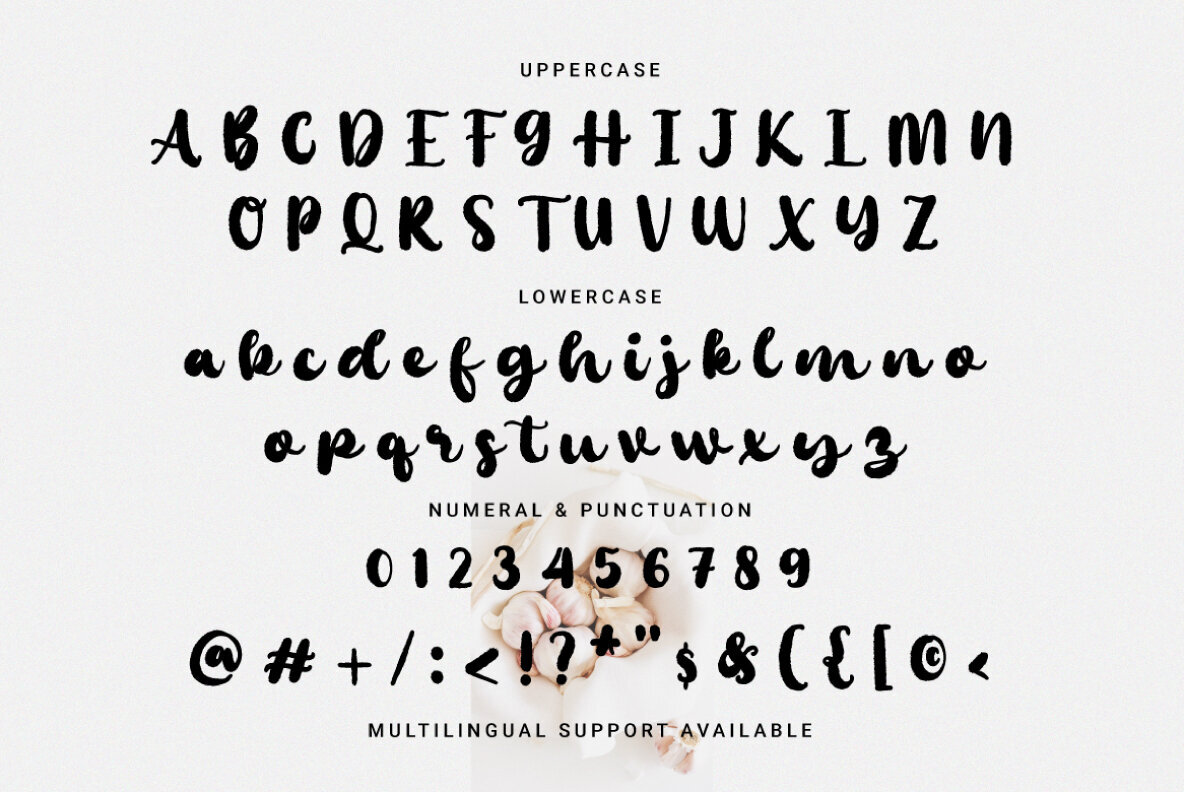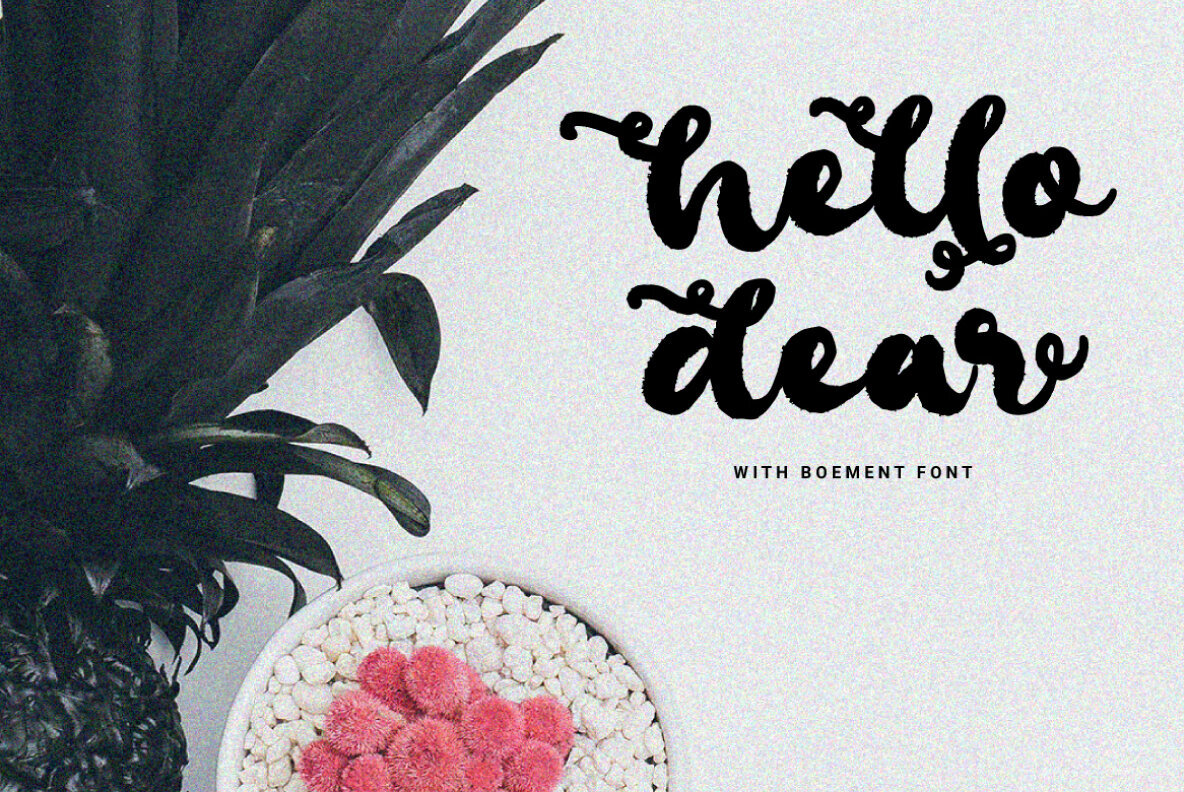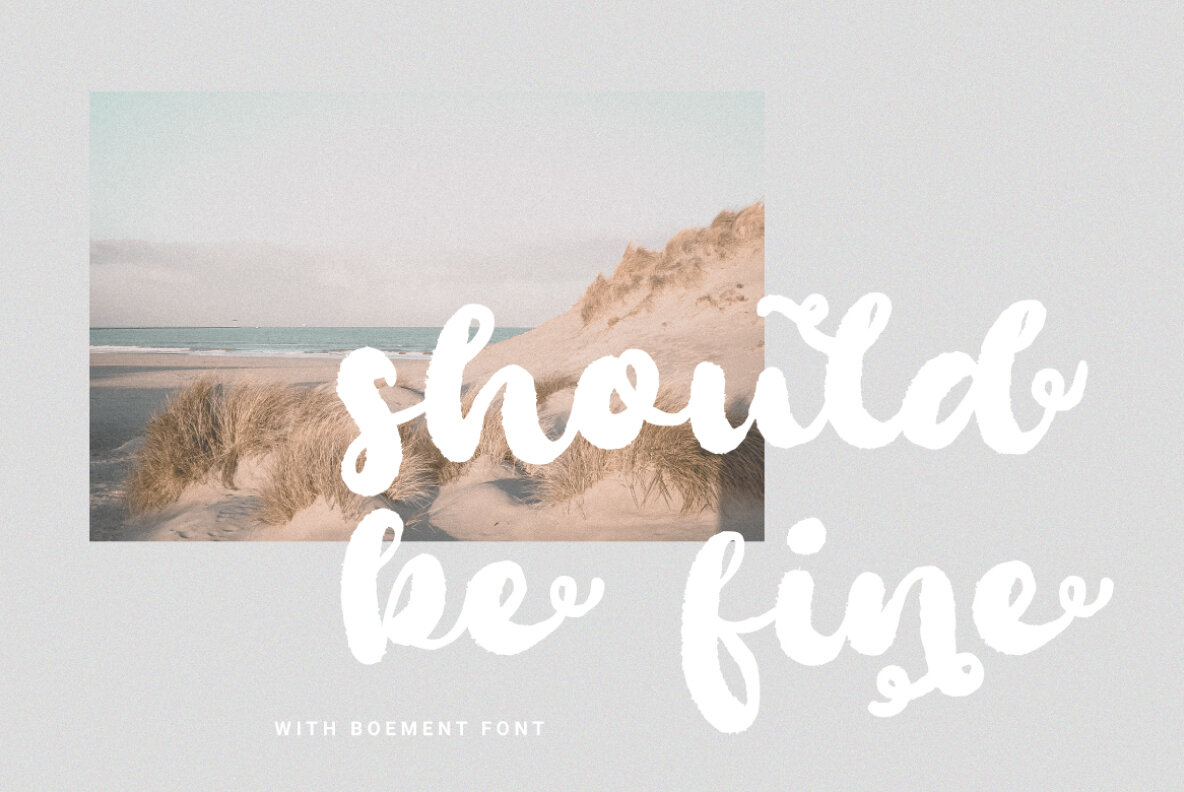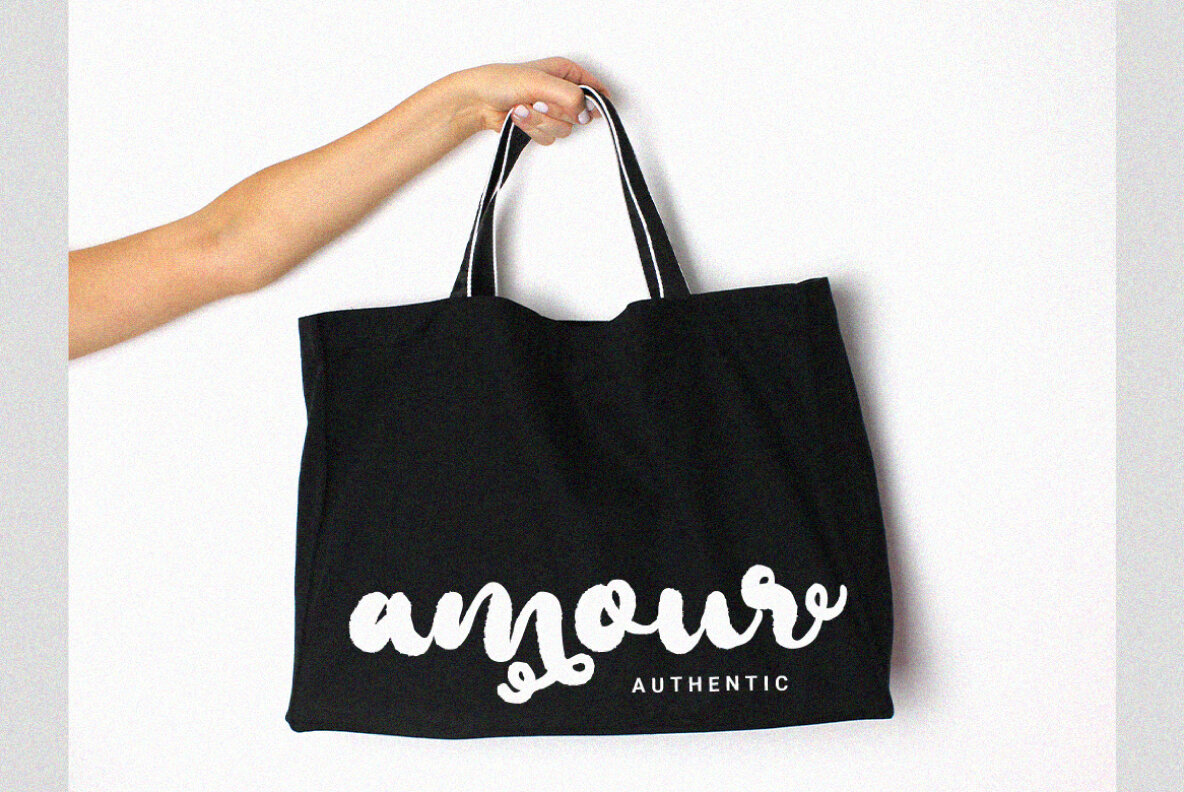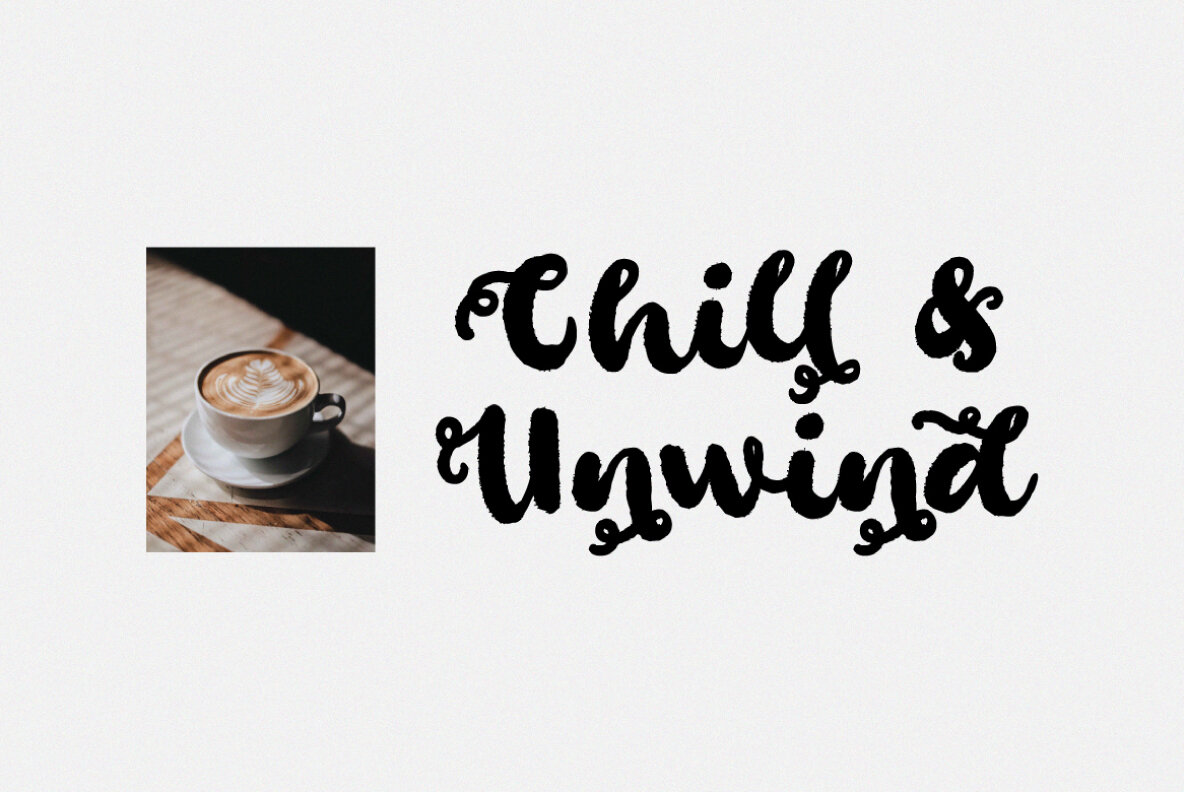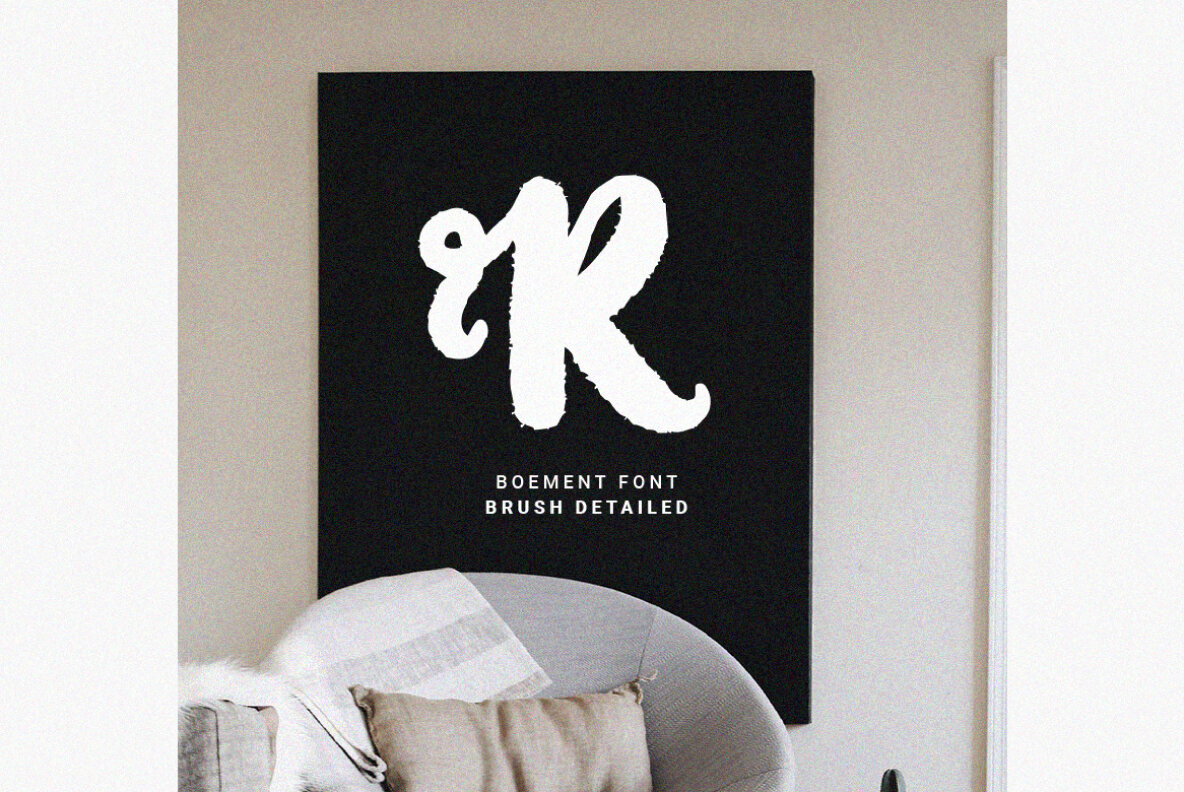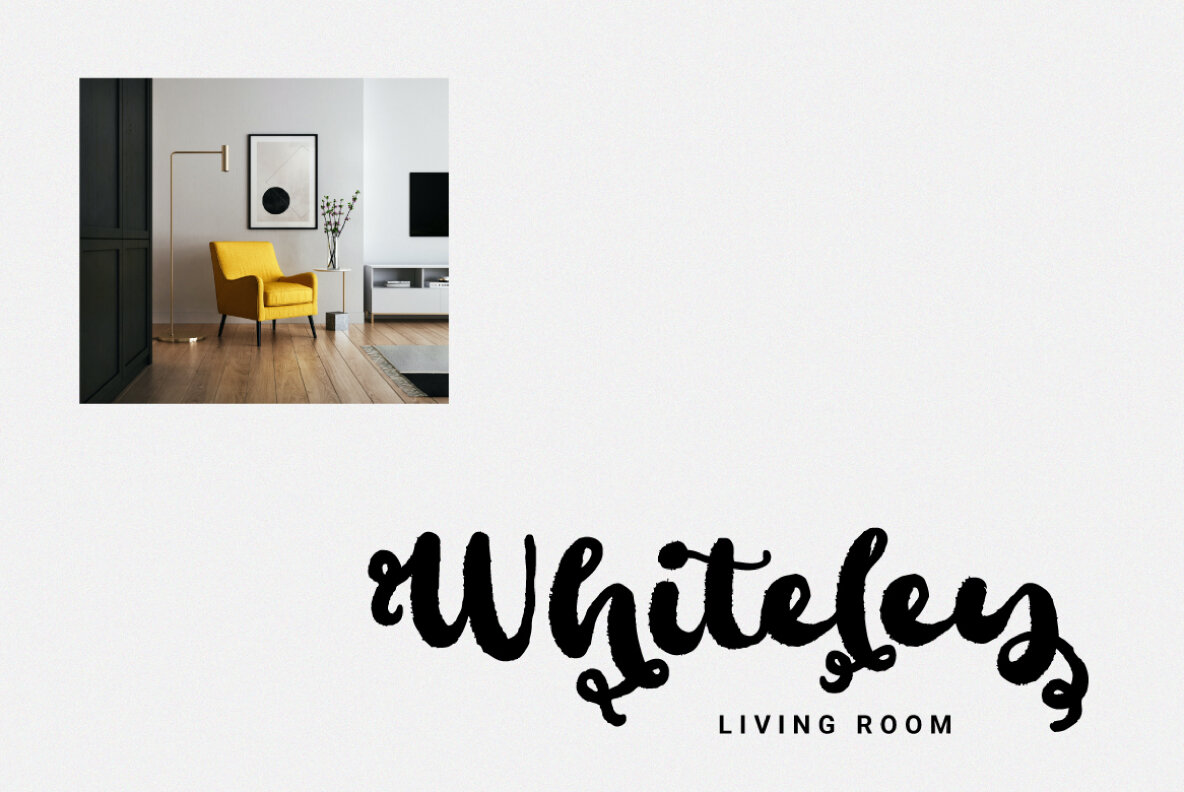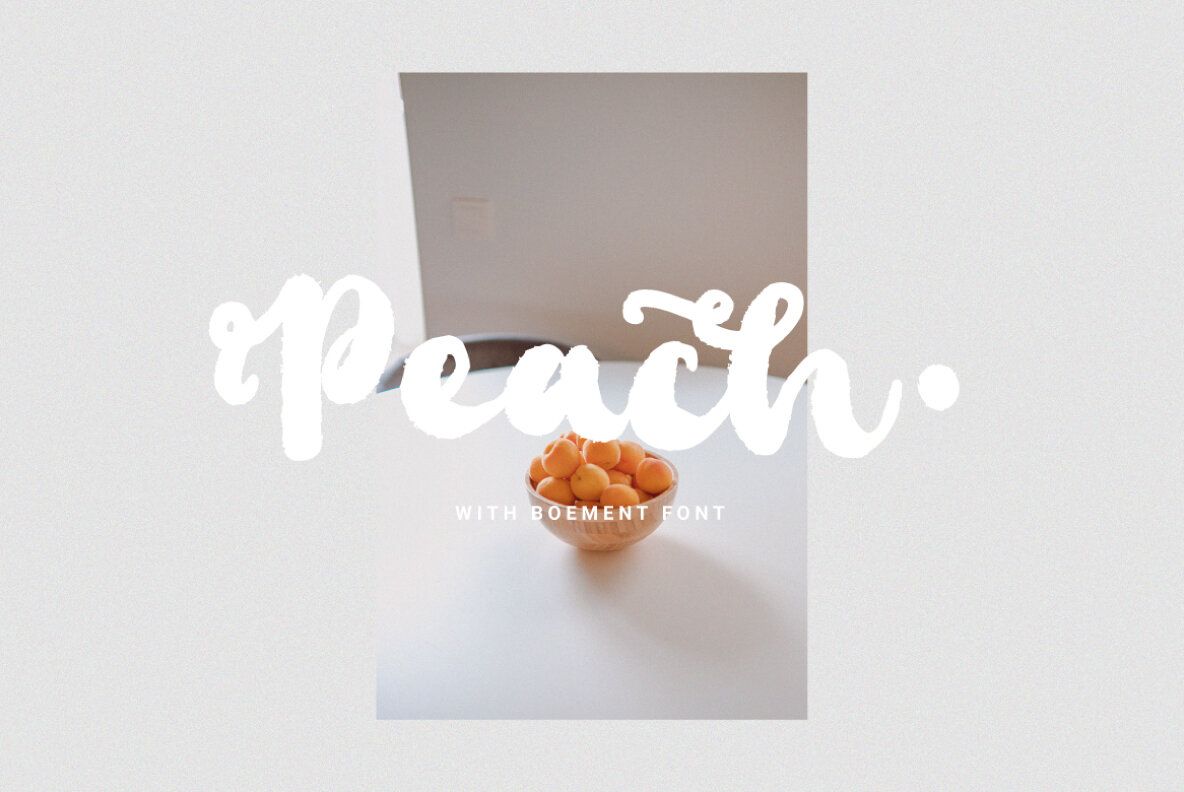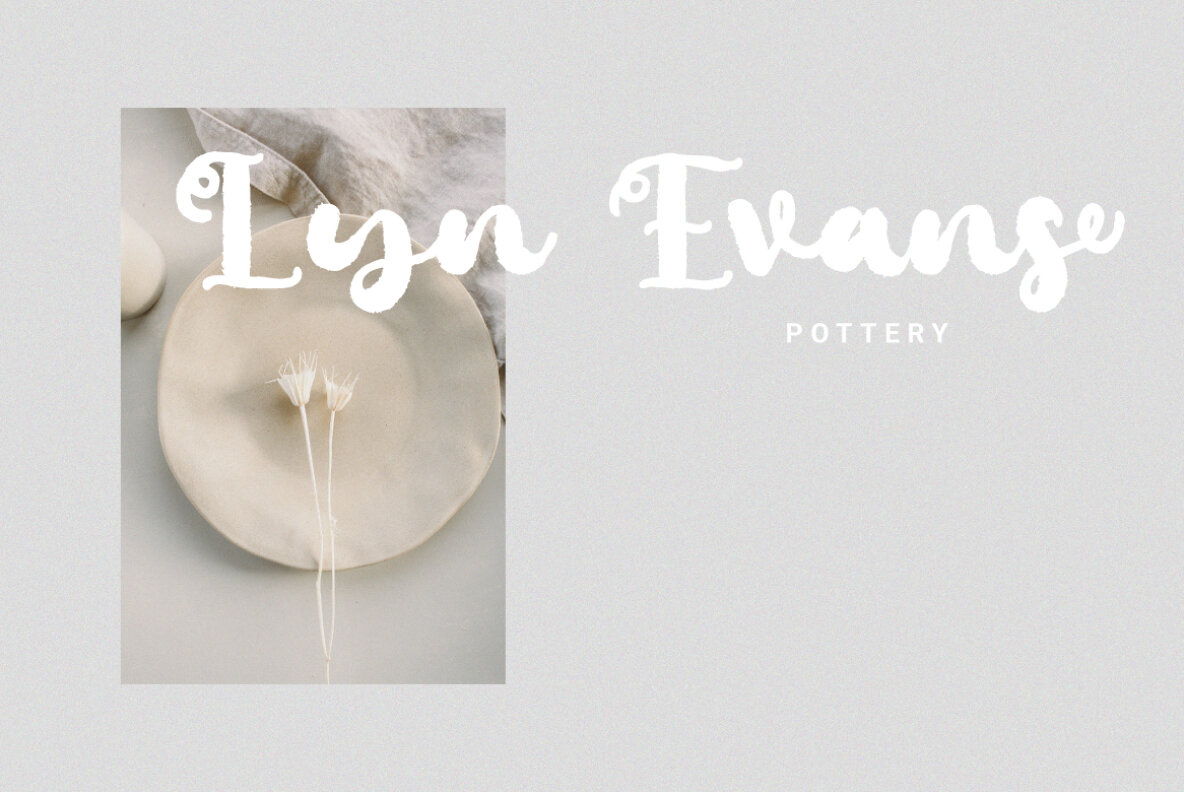
Boement Font
Boement
Boement is a chic script font designed to add a beautifully textured elegance to your projects. Ideal for branding, logos, quotes, and covers, this font is enhanced with additional alternative characters for a richer appearance. Its versatile style makes it suitable for various design applications.
Features of Boement include a full set of uppercase and lowercase letters, numerals, punctuation, and a collection of ligatures and alternates to inspire creativity. Boement also supports an extensive range of multilingual characters, making it a fitting choice for a global audience. Languages supported include Afrikaans, Albanian, Danish, Dutch, English, French, German, Italian, Spanish, Swedish, and many more, ensuring broad usability across various linguistic contexts.
With its elegant script and comprehensive language support, Boement is poised to enhance your design projects with grace and sophistication, catering to both multilingual content and intricate designs.